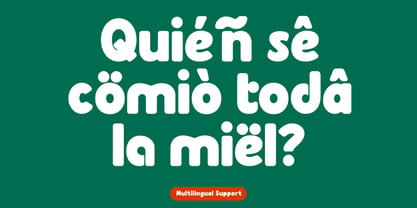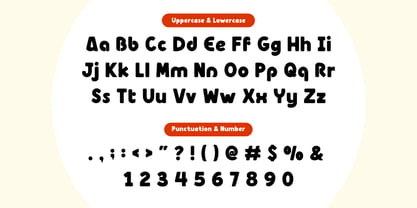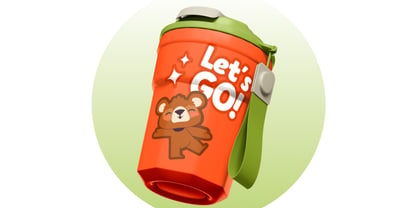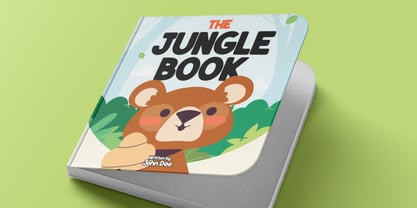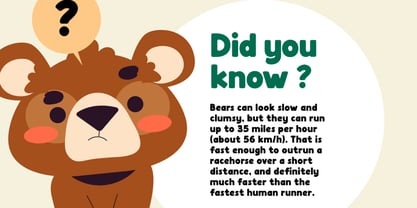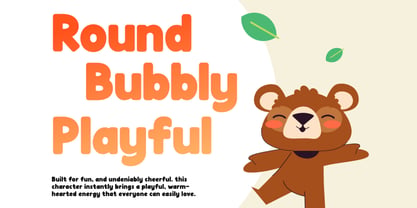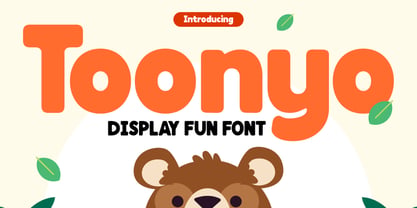
Toonyo
by Rasio Studio
The Toonyo Font Family was designed by Fajar Indra and published by Rasio Studio. Toonyo contains 1 styles. More about this family
Toonyo Display Fun Font is a cheerful and rounded typeface designed to bring playful character to your visuals. Its bold, smooth shapes and friendly curves make it perfect for projects that radiate happiness and creativity. Inspired by cartoon lettering and toy packaging, Toonyo balances readability with a joyful personality that appeals to both kids and adults. Includes uppercase and lowercase letters, numerals, punctuation, and multilingual support. Toonyo adds warmth and fun to every design — perfect for children’s branding, food packaging, social media posts, and playful product designs.